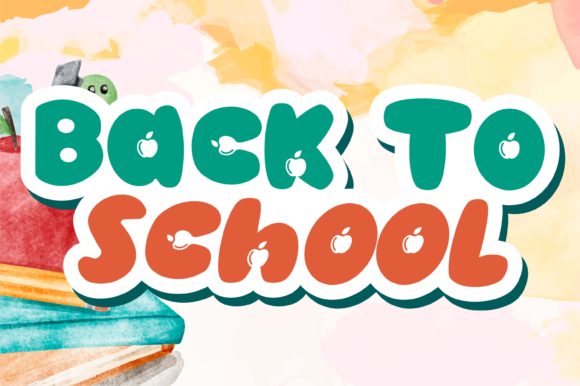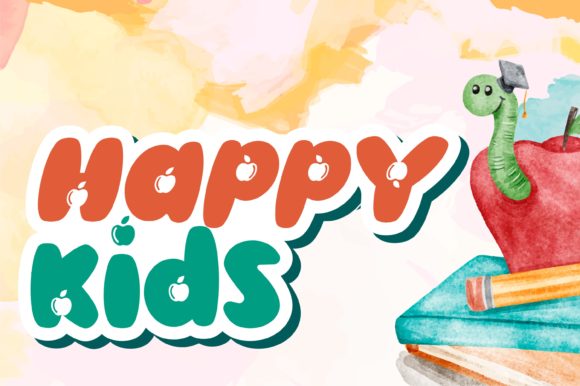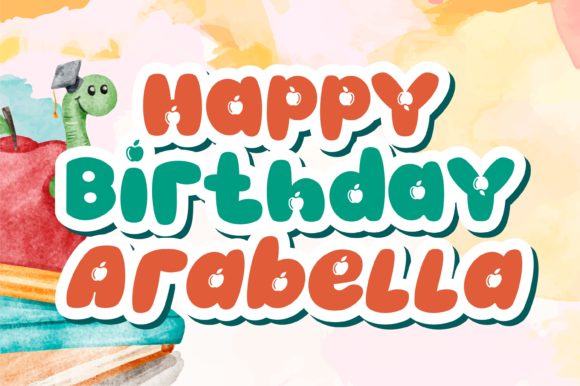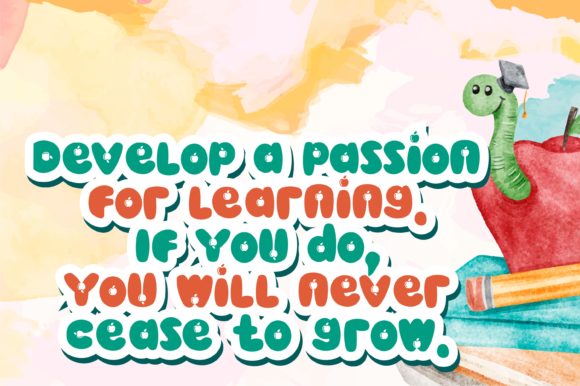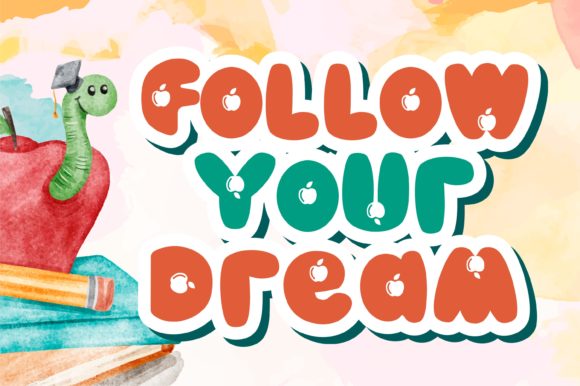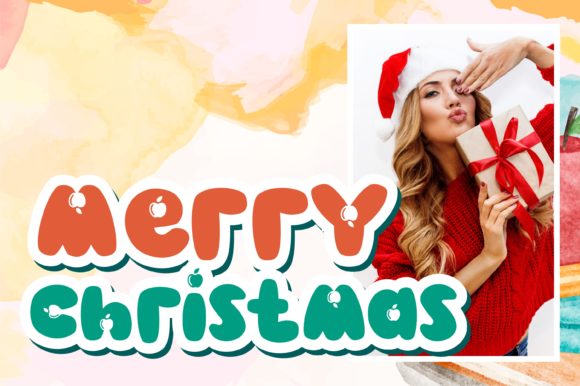
Bringing Childhood Magic to Your Designs
Do you remember the first time you drew a picture with bright, bold colors and playful lettering? The excitement and joy that came with creating something new and imaginative? For designers, capturing that same sense of wonder and playfulness in their work can be a challenge. But with the right tools, it’s easier than ever to bring a touch of childhood magic to your designs.
Enter Apple Kids Font, a delightful display font that embodies the spirit of playfulness and authenticity. Perfect for children’s activities, school projects, and more, Apple Kids Font adds a touch of whimsy to any design. With its chunky lettered style, this font is sure to make your designs come alive!
Apple Kids Font Key Features
- Font Family: Apple Kids Font, a custom-designed font for Apple devices
- Unique Characteristics: Features a playful, child-friendly design with rounded edges and smooth curves
Apple Kids Font Review
As a designer, I was excited to dive into the Apple Kids Font and see how it fares in the world of typography. Here’s my honest review.
- The font is playful and fun, making it perfect for kid-friendly content, such as children’s books, educational materials, or apps.
- The bold and italic styles are well-designed and add variety to the font family.
- The font is highly legible, even at small sizes, which is essential for digital displays.
- The font lacks a strong sense of personality and uniqueness, making it feel somewhat generic.
- The uppercase letters are not as playful as the lowercase letters, which can create an inconsistent look.
- The font may not be suitable for more formal or professional applications, as it can come across as too childish.
While the Apple Kids Font has its strengths, it ultimately feels like a safe and unremarkable choice. It gets the job done, but it won’t blow you away with its creativity or originality. If you’re looking for a font that’s fun and playful, but not too adventurous, this might be a good fit. However, if you’re looking for something more unique or sophisticated, you may want to explore other options.
The Apple Kids Font is perfect for creating playful and whimsical designs. It’s commonly used in children’s books, educational materials, and party invitations. To get the most out of the font, experiment with different font sizes and colors to create visual interest.
– Creating a children’s book cover
– Designing a party invitation for a kids’ birthday party
– Developing educational materials for young children
Alternatives to Apple Kids Font
Great Vibes is a modern script font that is perfect for creating a friendly and approachable tone. It is ideal for use in titles, headings, and other text elements where a casual feel is desired. Great Vibes has a more fluid and dynamic feel compared to Apple Kids Font, making it a great choice for designers who want to add a touch of personality to their designs.
Pacifico is a beautiful script font that is reminiscent of the seaside. It is perfect for use in branding, advertising, and other design elements where a relaxed and calming feel is desired. Pacifico has a more elegant and sophisticated feel compared to Apple Kids Font, making it a great choice for designers who want to add a touch of sophistication to their designs.
Carolyna Pro is a modern script font that is perfect for creating a bold and eye-catching design. It is ideal for use in titles, headings, and other text elements where a dramatic feel is desired. Carolyna Pro has a more dramatic and attention-grabbing feel compared to Apple Kids Font, making it a great choice for designers who want to make a statement with their designs.
Alex Brush is a beautiful script font that is perfect for creating a personal and handwritten feel. It is ideal for use in branding, advertising, and other design elements where a warm and inviting feel is desired. Alex Brush has a more organic and handmade feel compared to Apple Kids Font, making it a great choice for designers who want to add a touch of warmth to their designs.
Can I use Apple Kids Font in my own projects?
No, Apple Kids Font is a proprietary font owned by Apple and is not available for public use. It’s intended for use within Apple’s own products and services, and using it in your own projects without permission could be a copyright infringement.
Are there any alternatives to Apple Kids Font?
Yes, there are several alternative fonts that are similar to Apple Kids Font. Some popular options include Open Sans, Lato, and Montserrat. These fonts are all open-source and can be used freely in your own projects.